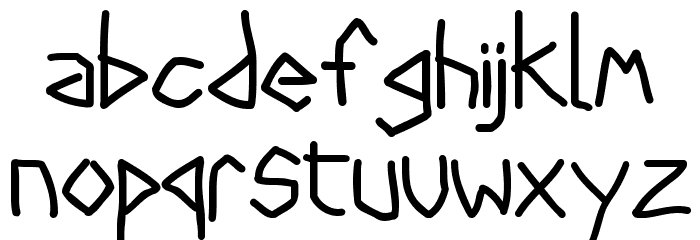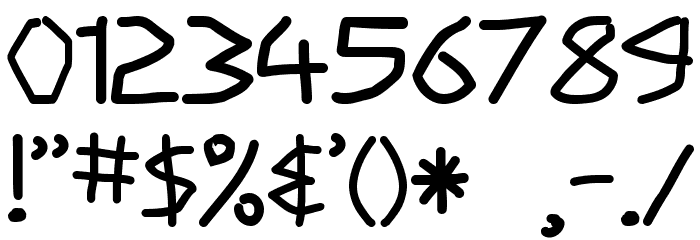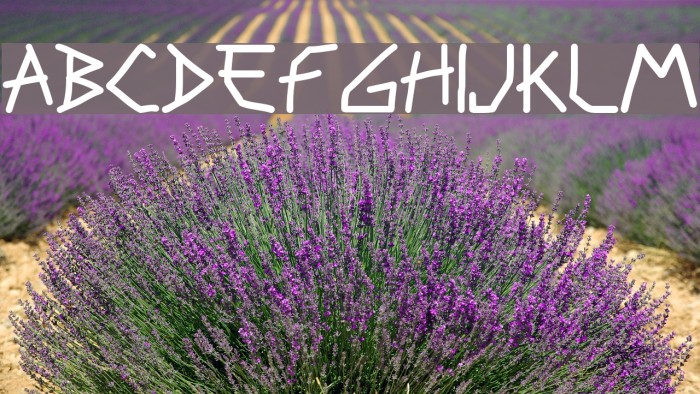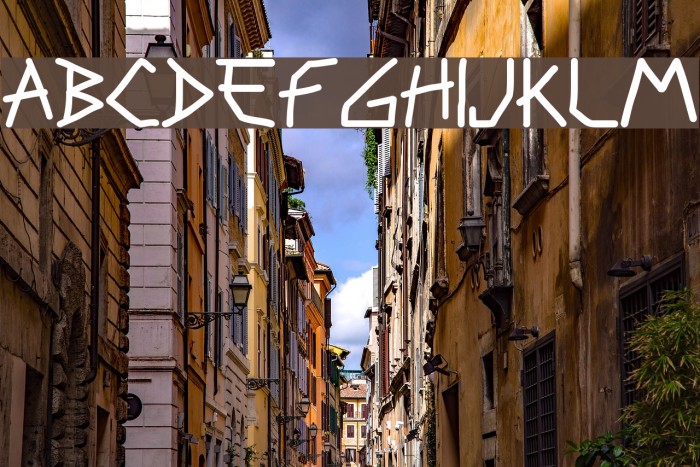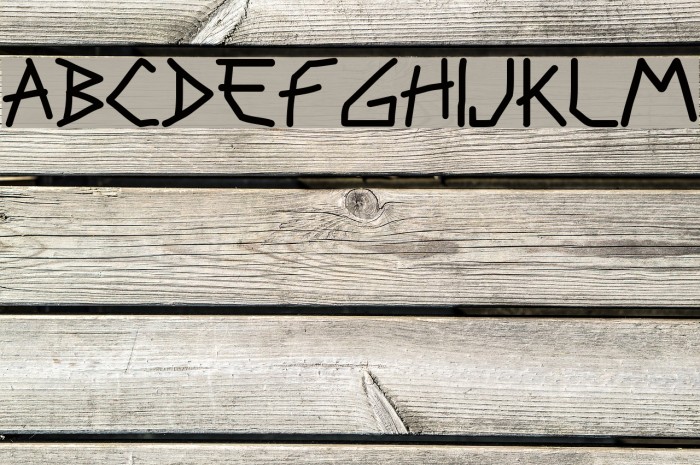
Stryx Font
This font features a playful and informal handwritten style, characterized by irregular strokes and a casual, organic feel. The uppercase letters exhibit a slightly angular and geometric form, while the lowercase letters maintain a consistent flow with a touch of whimsy. Numbers and special characters follow the same playful aesthetic, making the font suitable for creative and informal designs. The overall appearance is dynamic and lively, with a unique charm that stands out in various design contexts.
A playful, handwritten font with irregular strokes and a casual, organic feel.
- Proposed Projects: Ideal for children's books, creative posters, casual branding, and playful invitations.
- Use Case: Headlines, Logos, Informal Text